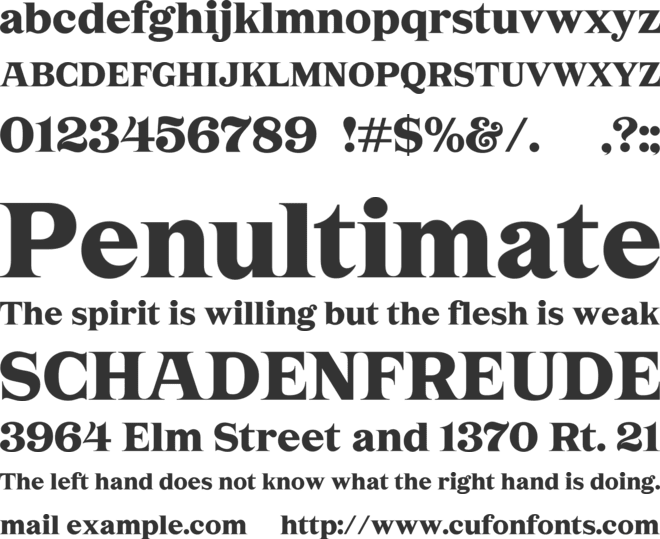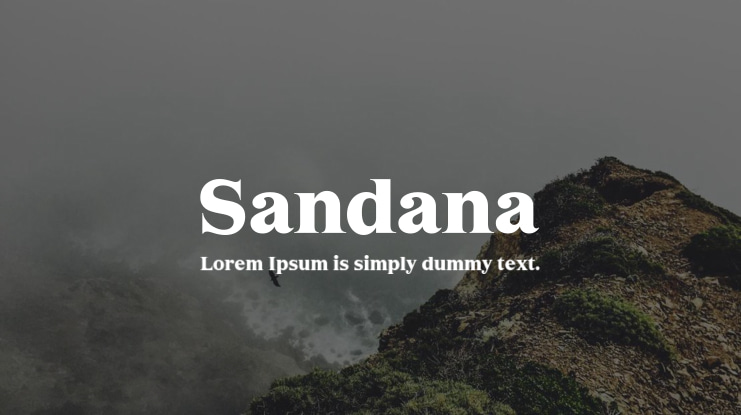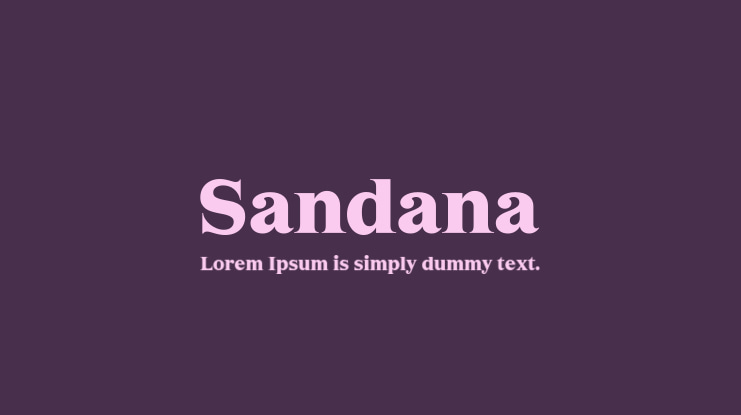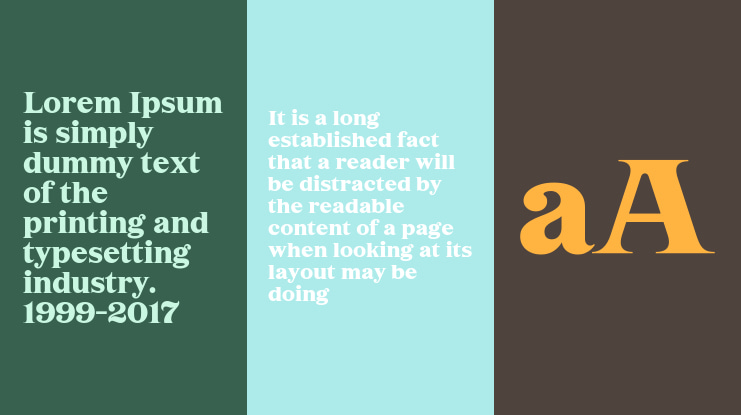
Sandana Font
A long long time ago... in the 70s... the DUNE books written by Frank Herbert were being reprinted with updated cover art. The font for the book's title, in shiny golden letters, remained unknown to most fans. The font's real name is Davison Art Nouveau, and this font is my revival and expansion of said typeface. It's still in progress but you can use it as it is right now.